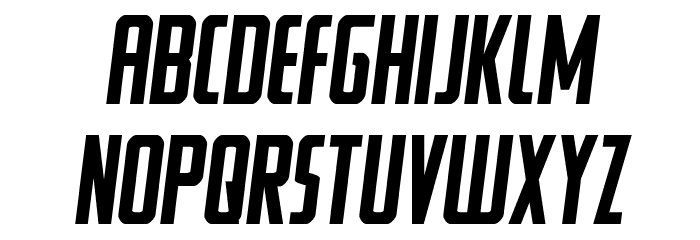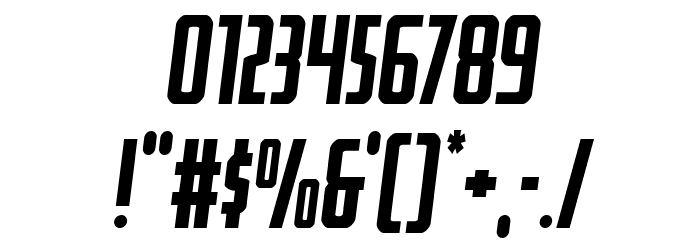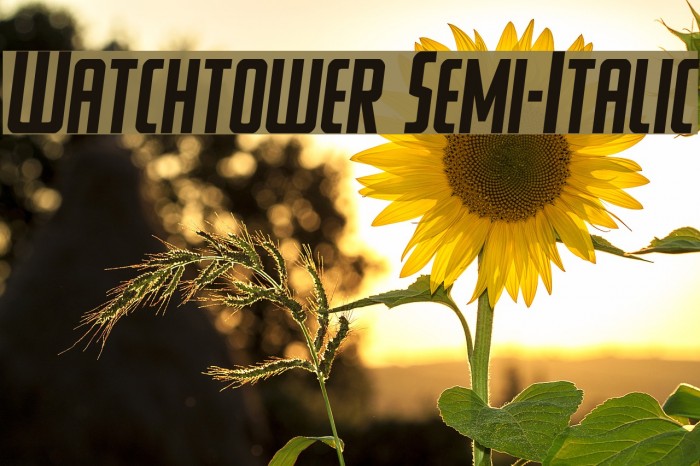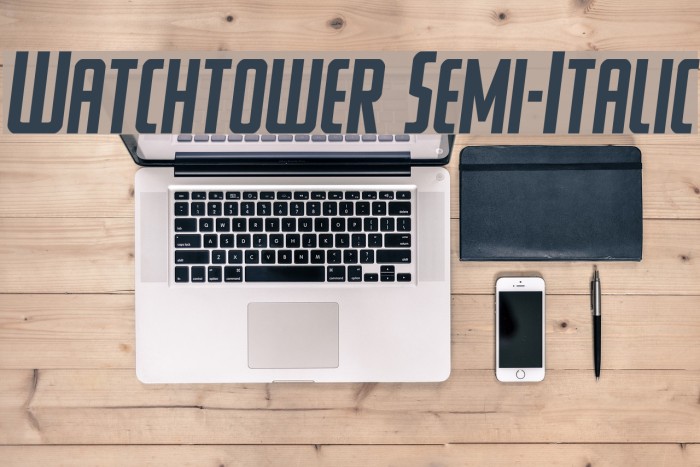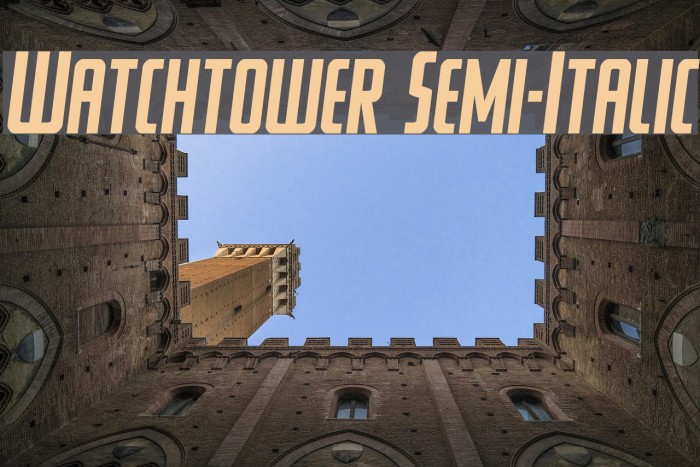
Watchtower Semi-Italic Font
This font features a bold and dynamic style with a semi-italic slant, giving it a sense of movement and energy. The uppercase letters are tall and slightly condensed, while the lowercase letters maintain a consistent height, creating a harmonious balance. The numbers are clear and legible, matching the overall boldness of the font. Special characters are designed with the same attention to detail, ensuring they integrate seamlessly with the rest of the typeface. The strokes are thick and uniform, providing a strong visual impact, making it suitable for attention-grabbing headlines and titles.
A bold, semi-italic font with a dynamic and energetic style.
- Proposed Projects: Ideal for sports branding, dynamic posters, and modern advertising campaigns.